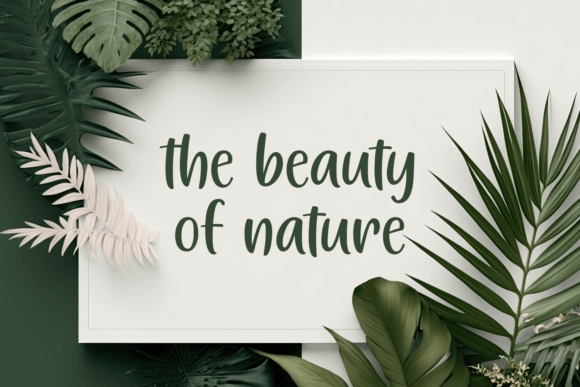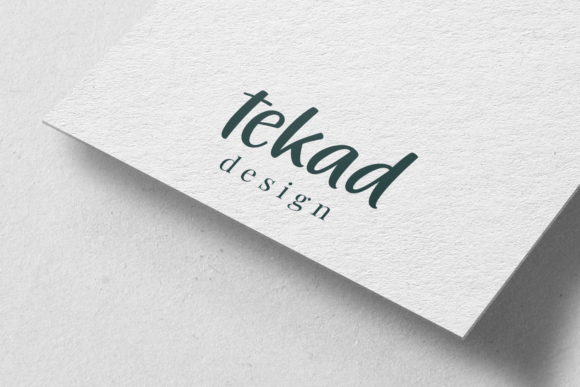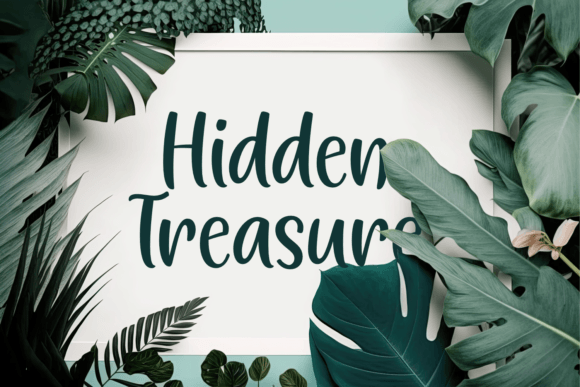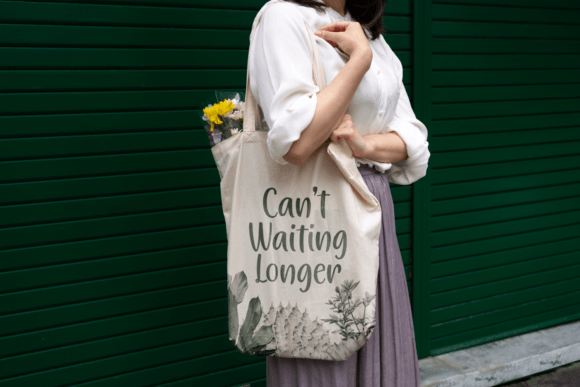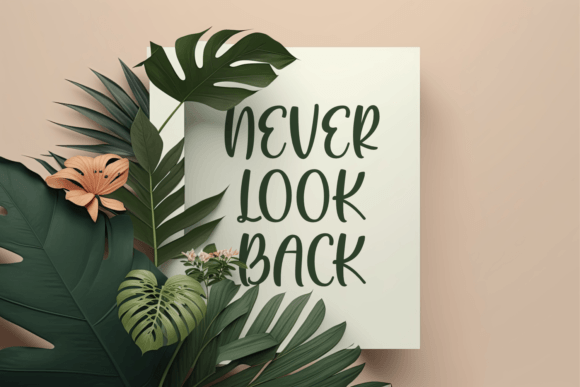
Ageth Font: Elevate Your Designs with a Clean and Modern Script
In the world of typography, fonts play a crucial role in conveying the tone and aesthetic of a design. For those seeking a sleek and contemporary look, Ageth Font emerges as an excellent choice. This clean and modern script font is designed to bring a touch of sophistication and professionalism to various projects, making it a versatile tool for designers and crafters alike.
The Essence of Ageth Font
Ageth is characterized by its minimalist design and smooth lines, which collectively contribute to its modern appeal. Unlike traditional fonts that may carry a sense of formality or playfulness, Ageth strikes a perfect balance, making it suitable for a wide range of applications. Whether you’re working on a logo, branding materials, or any project that requires a fresh and stylish touch, Ageth proves to be an invaluable asset.
Key Features of Ageth Font
- Clean and Modern Design: Ageth’s design is centered around simplicity and elegance. Its clean lines and modern aesthetic make it stand out in the world of script fonts.
- Minimalist Approach: The font’s minimalist approach ensures that it can complement a variety of design elements without overpowering them.
- Smooth Lines: The smooth lines of Ageth contribute to its sleek appearance, making it perfect for designs that require a fluid and contemporary look.
- Sophistication and Professionalism: Ageth exudes a sense of sophistication and professionalism, making it ideal for projects that demand a high level of elegance.
Applications of Ageth Font
Ageth’s versatility is one of its most appealing qualities. Here are some of the areas where Ageth Font can make a significant impact:
- Logos and Branding: For businesses looking to establish a modern and sleek brand identity, Ageth can be a valuable tool. Its clean and professional appearance makes it suitable for logos, business cards, and other branding materials.
- Advertising and Marketing: In advertising and marketing, capturing the audience’s attention is crucial. Ageth’s contemporary look can help create visually appealing ads that stand out.
- Web Design: For web designers, Ageth offers a stylish solution for headings, titles, and even body text. Its readability and aesthetic appeal make it a great choice for websites aiming for a modern look.
- Packaging and Product Design: Ageth can also find its place in packaging and product design, adding a touch of elegance and sophistication to product labels and packaging.
Why Choose Ageth Font?
Choosing Ageth Font for your design projects comes with several advantages:
- Universal Appeal: Its clean and modern design has a universal appeal, making it suitable for a wide audience.
- Easy to Read: Despite its stylish appearance, Ageth maintains a high level of readability, which is essential for effective communication.
- Customizable: Being a versatile font, Ageth can be easily customized to fit the specific needs of your project.
- Time-Saving: With Ageth, designers can save time that would otherwise be spent on creating a custom font from scratch.
| Font Name | Ageth Font |
| Author | Riman (7NTypes) |
Ageth Font stands out in the realm of typography with its clean and modern script, making it an excellent choice for designers and crafters looking to imbue their projects with a sense of sophistication and professionalism. Its minimalist design, smooth lines, and versatile applications make it a valuable asset for a wide range of design needs. Whether you’re working on logos, branding, web design, or any other project, Ageth Font is sure to elevate your designs to new heights.